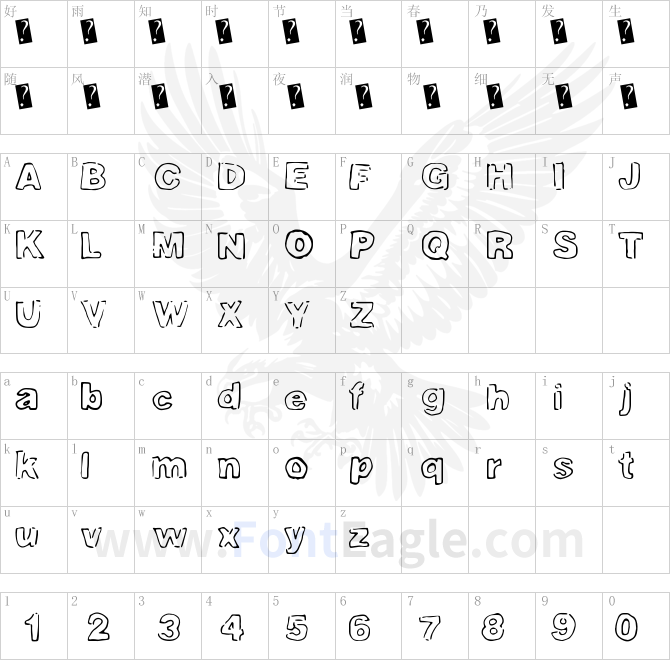
- Font name:DeliciousOutline
- Font Subfamily ID:DeliciousOutline:Version 1.00
- Font Full Name:DeliciousOutline
- Font Version:Version 1.00 August 20, 2012, initial release
- Postscript:DeliciousOutline